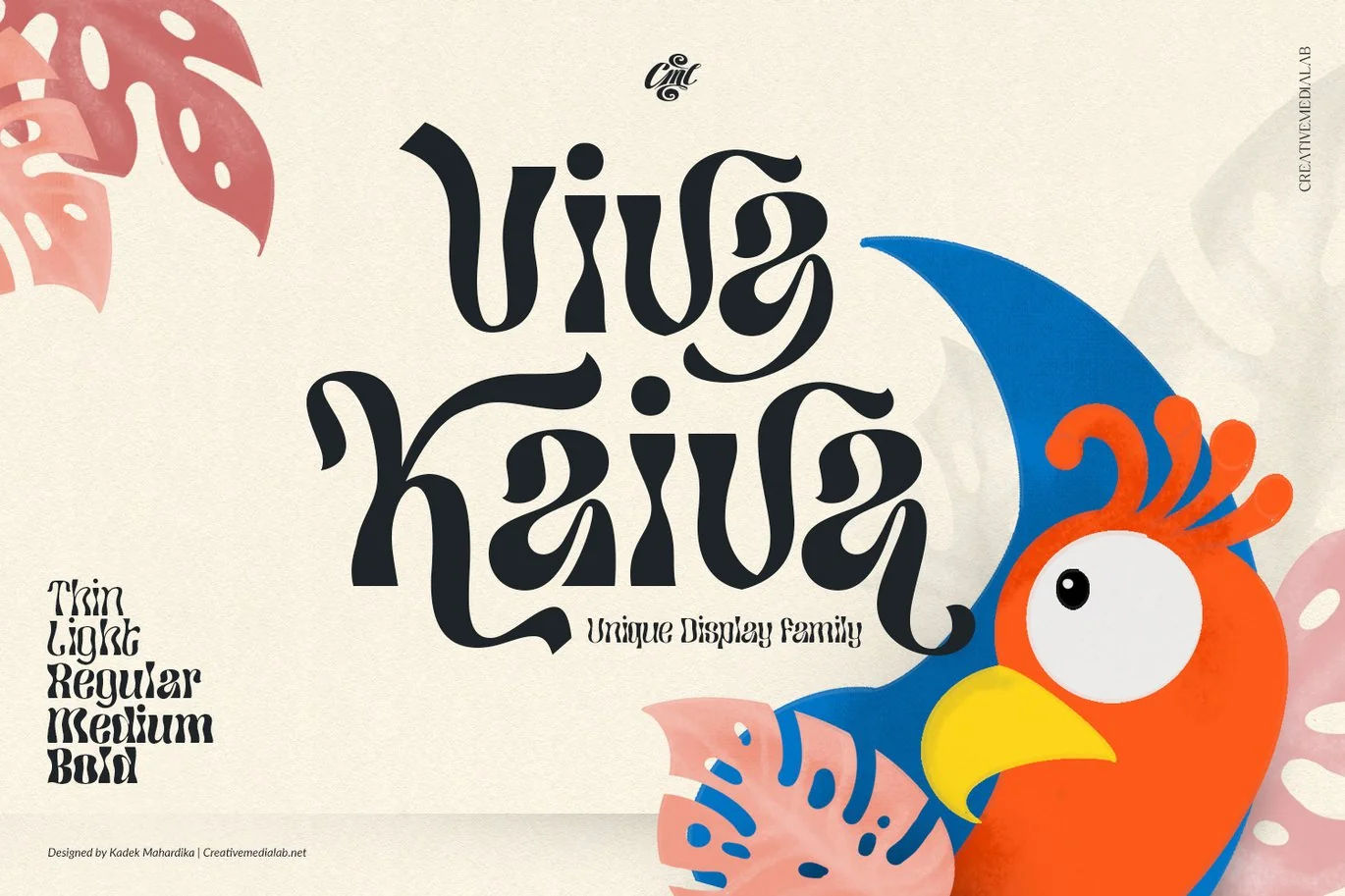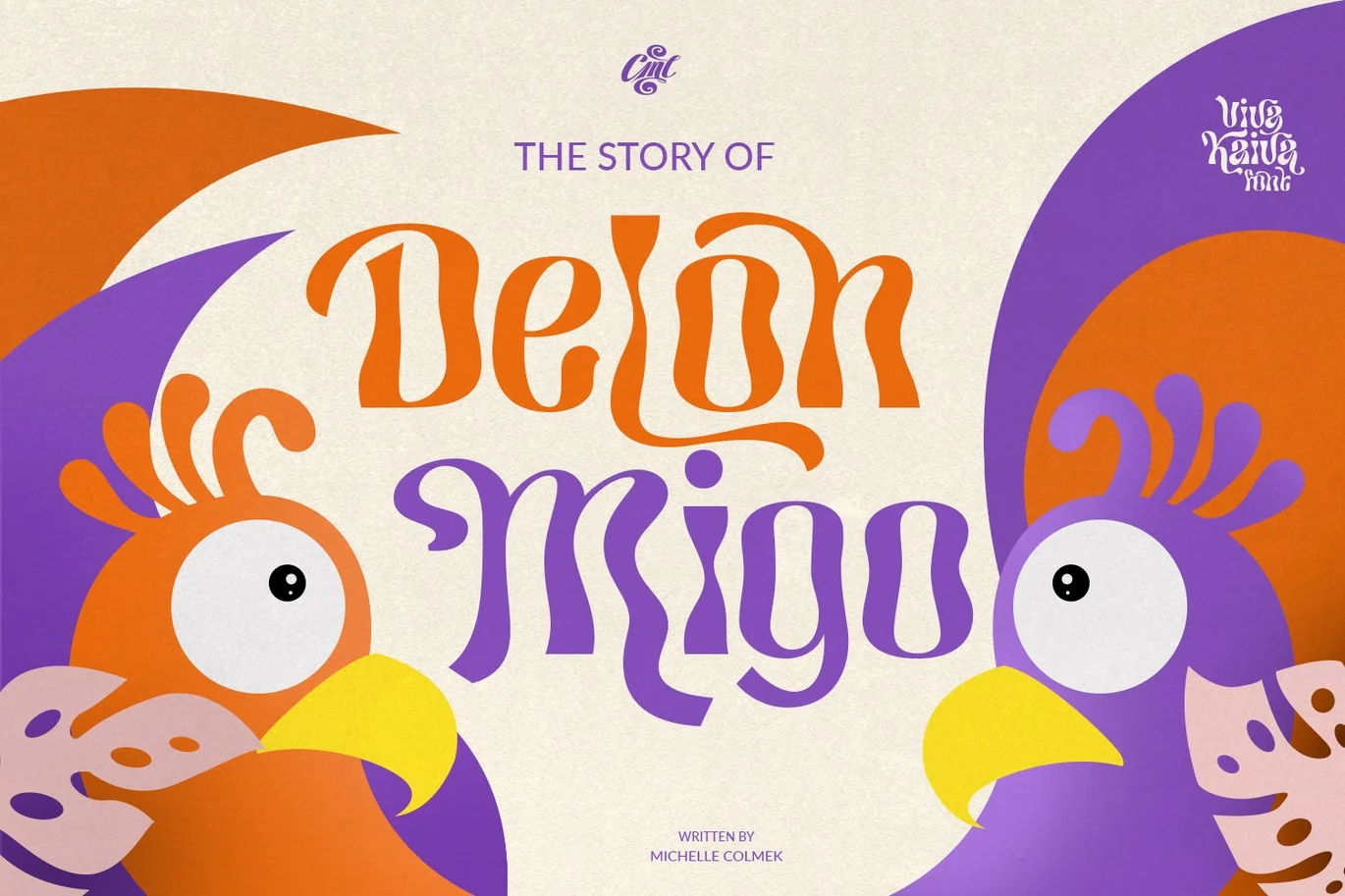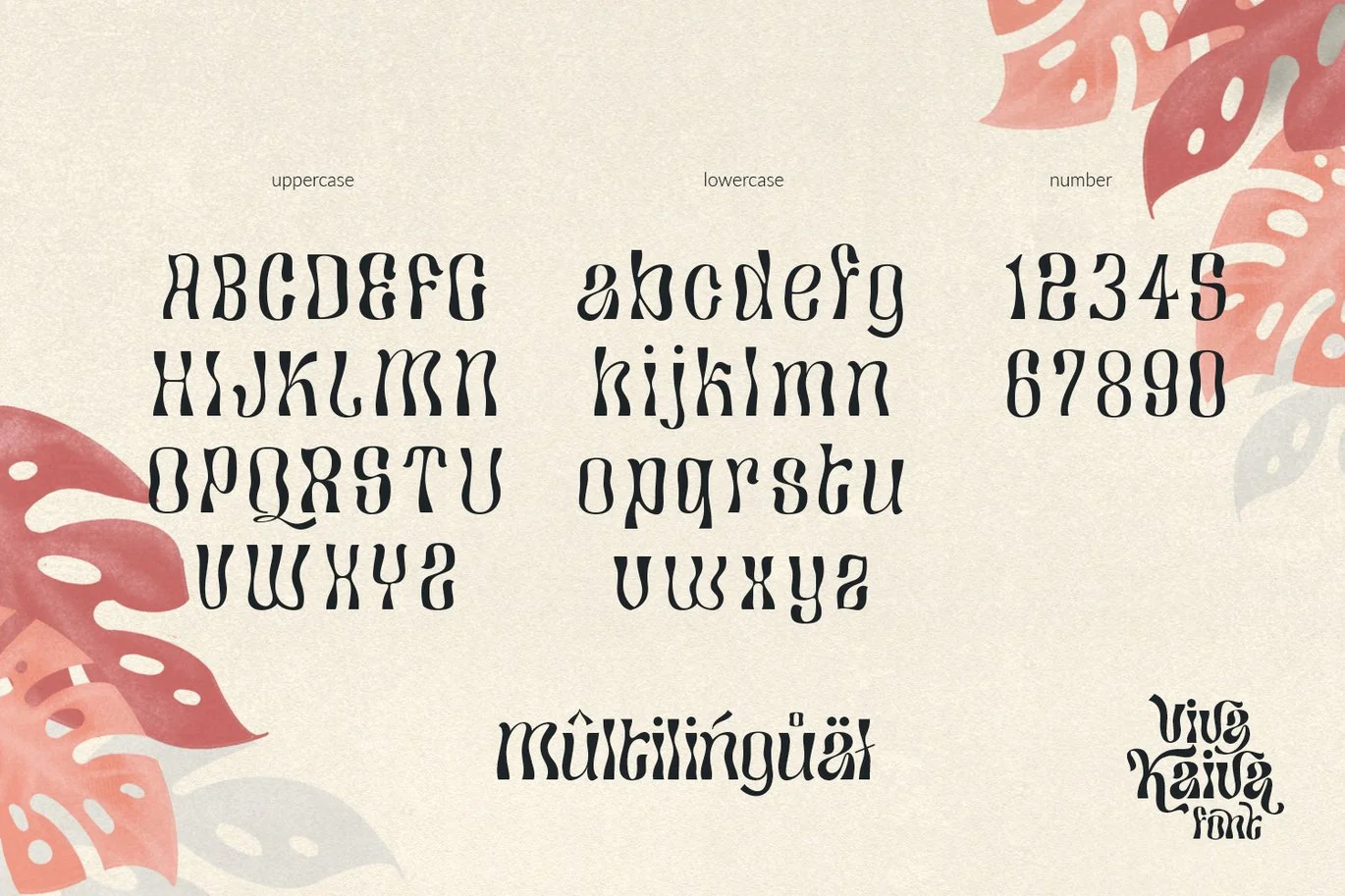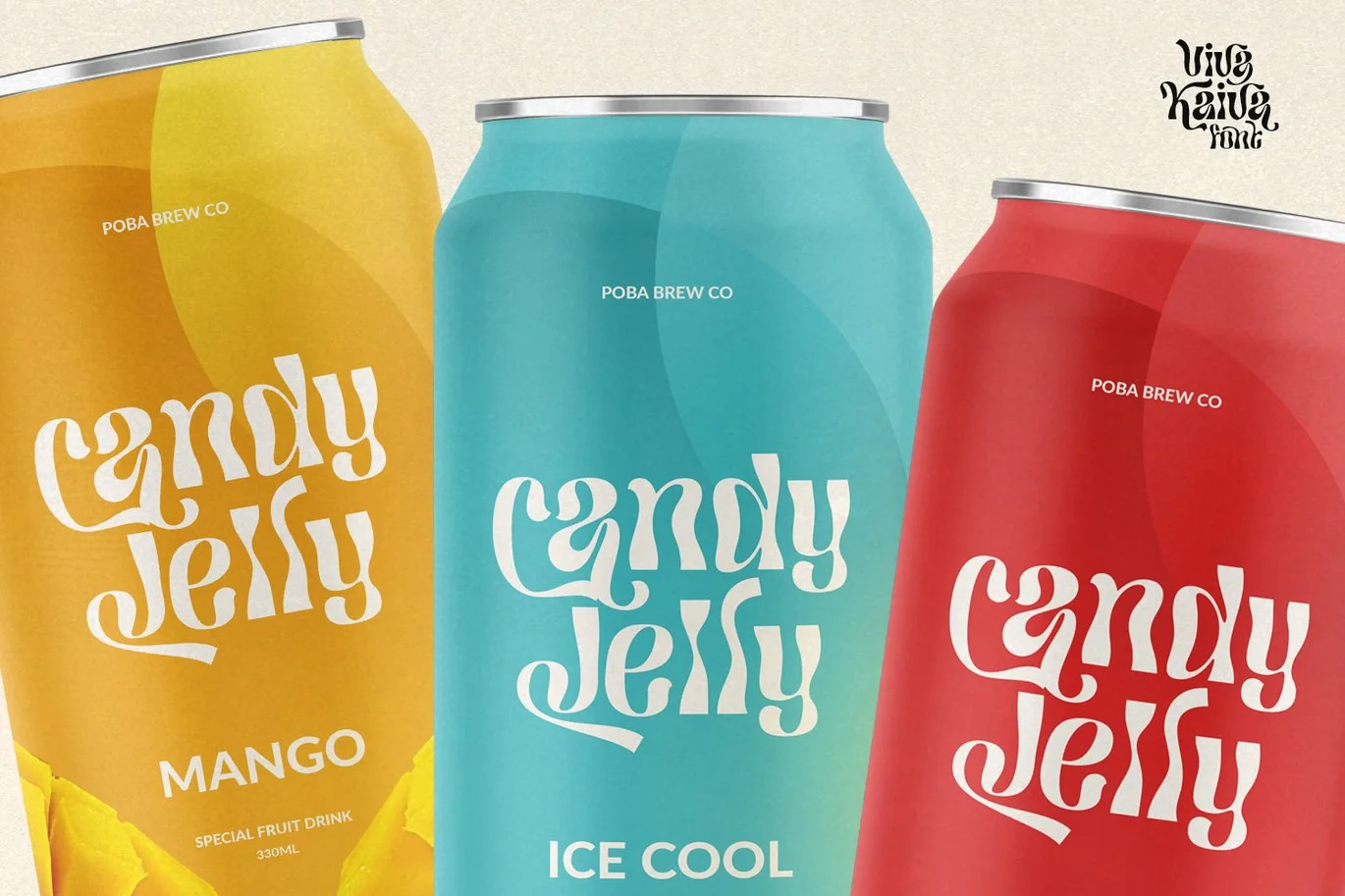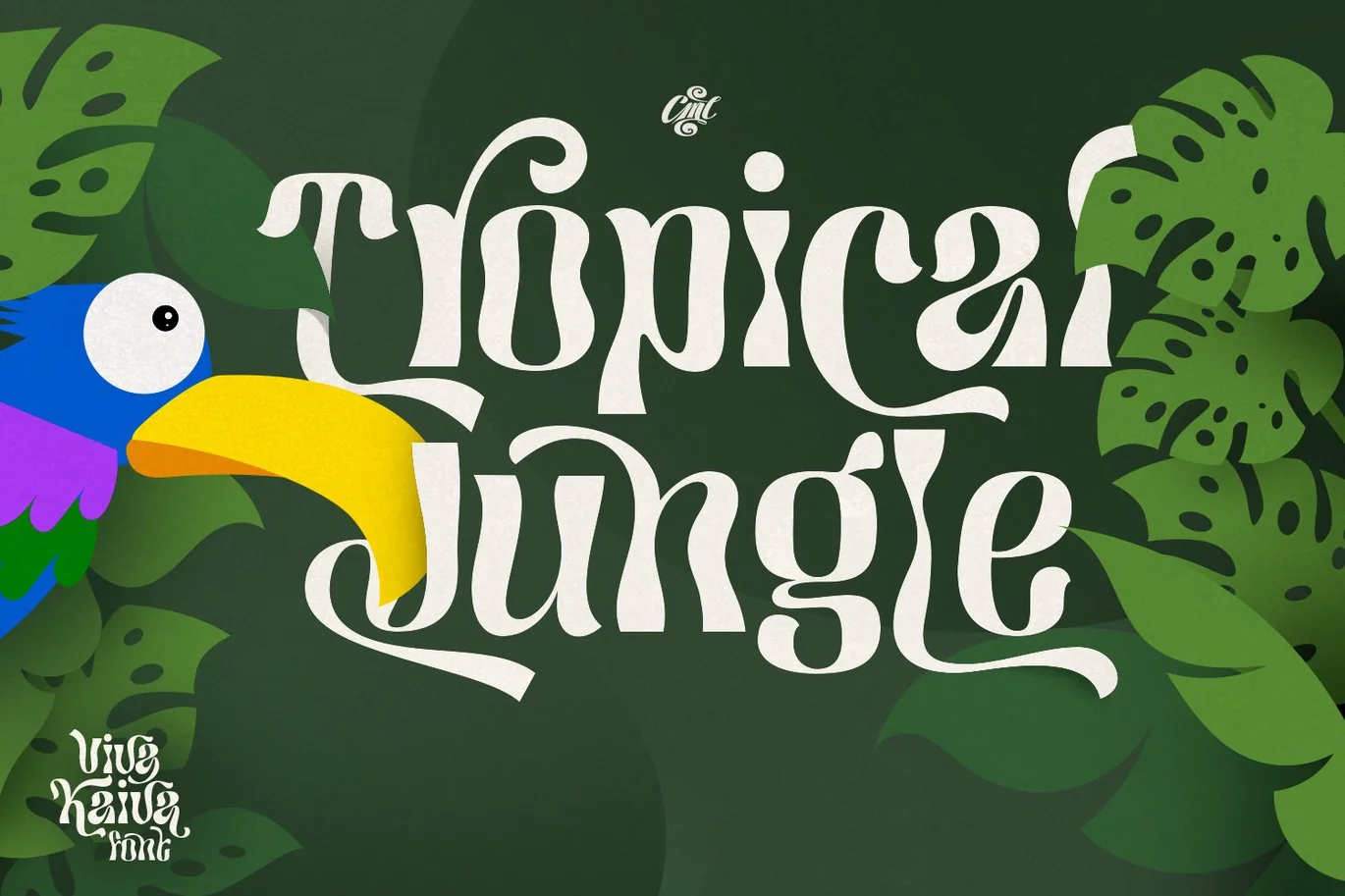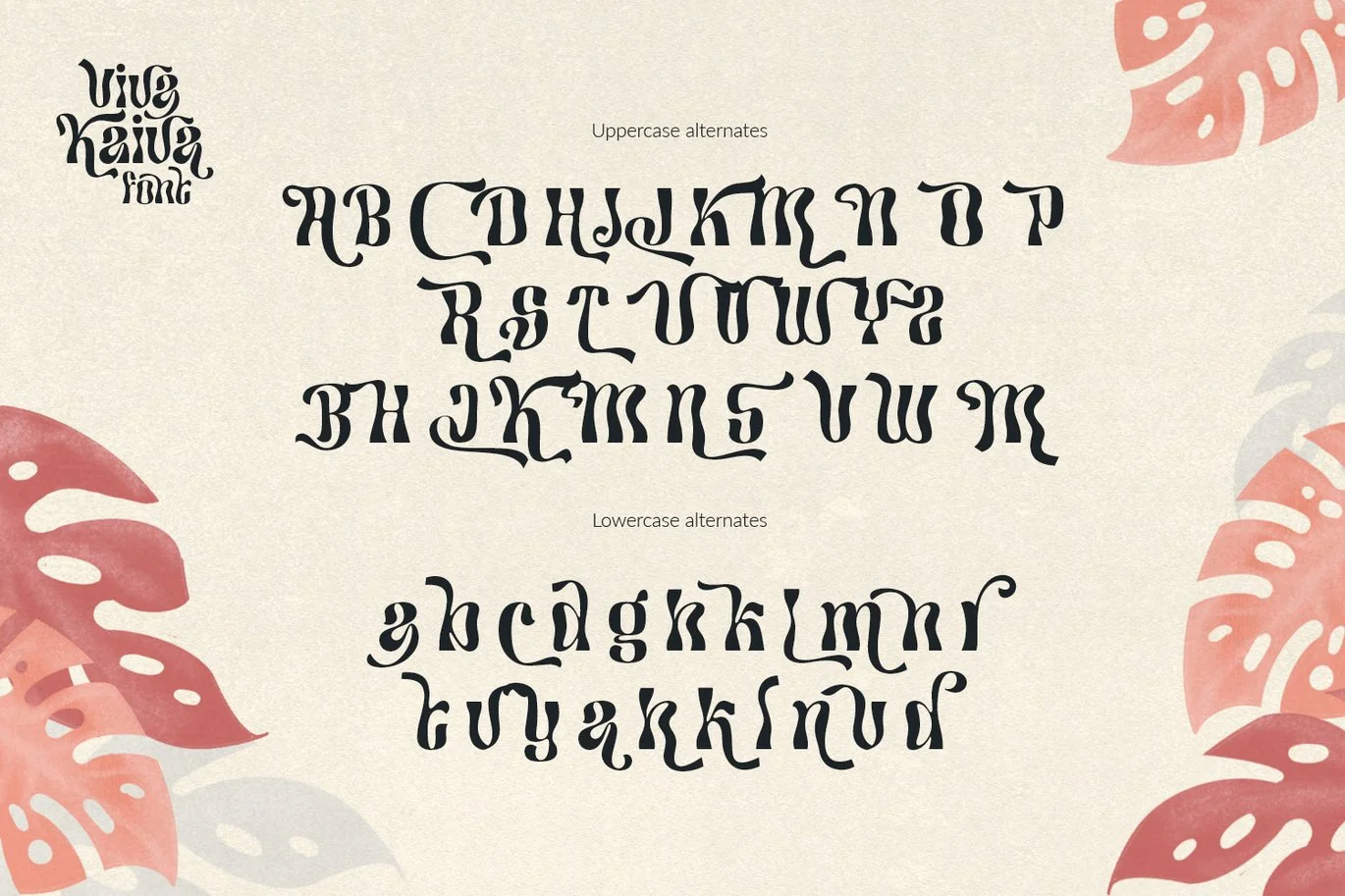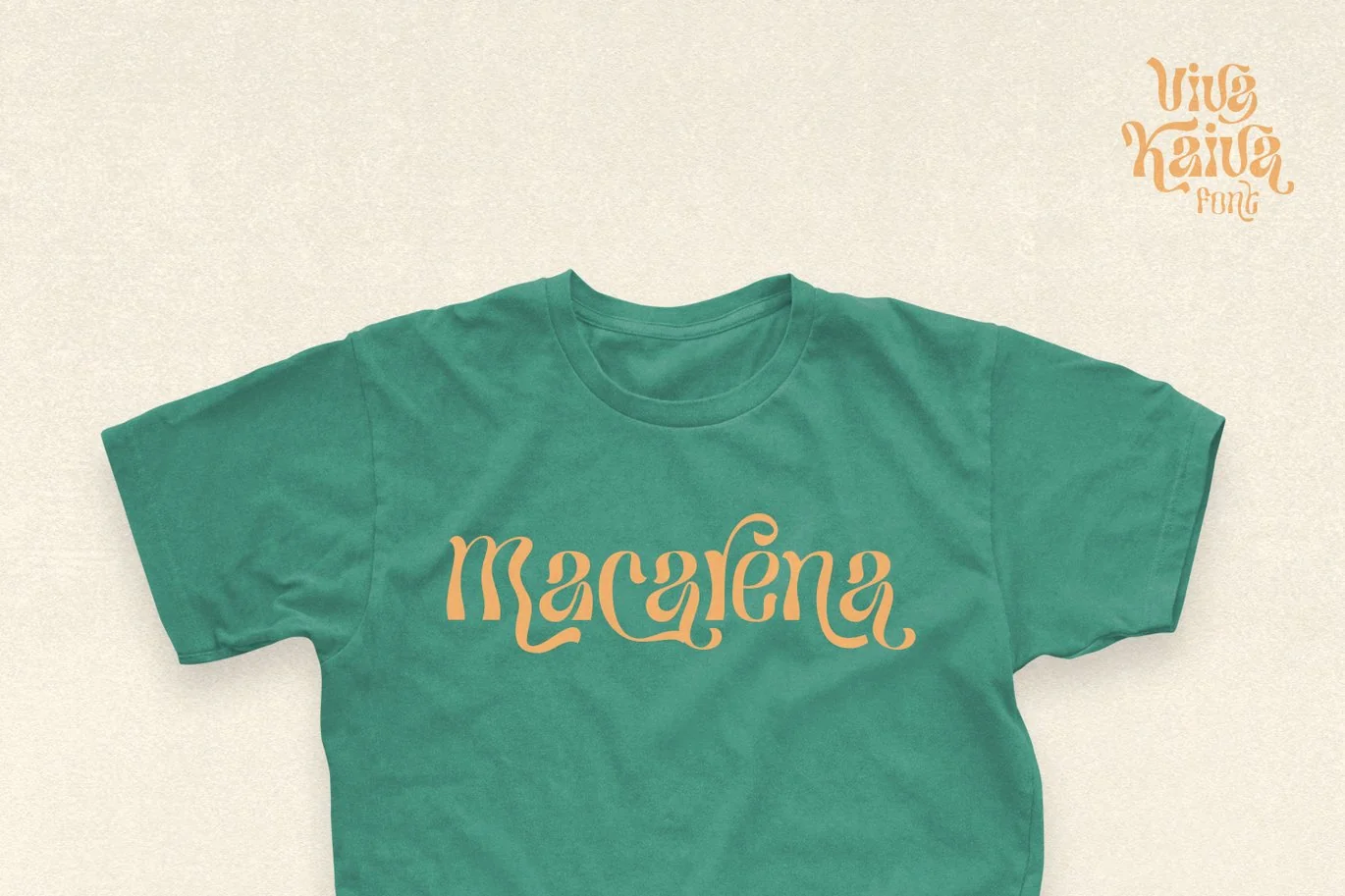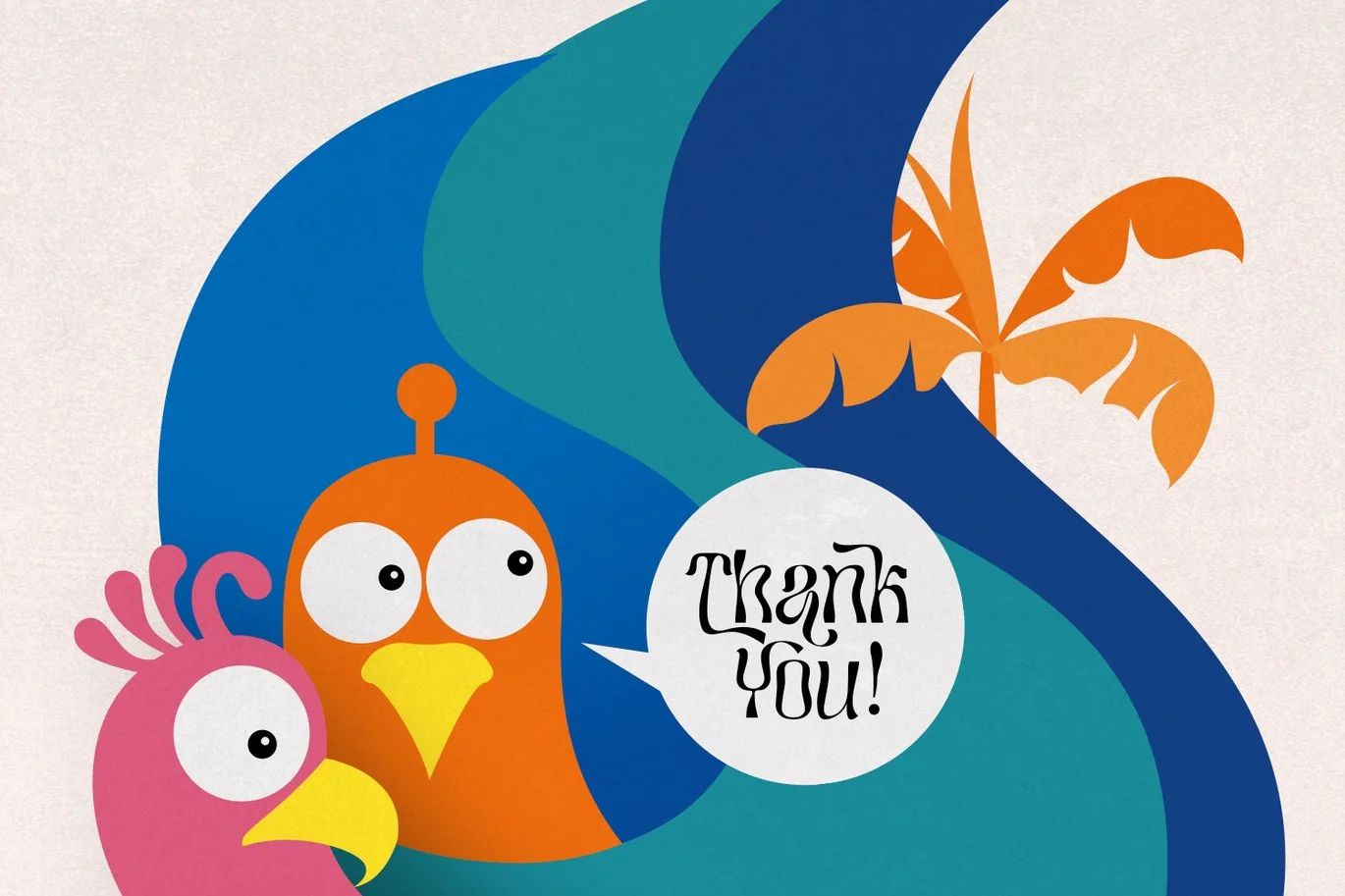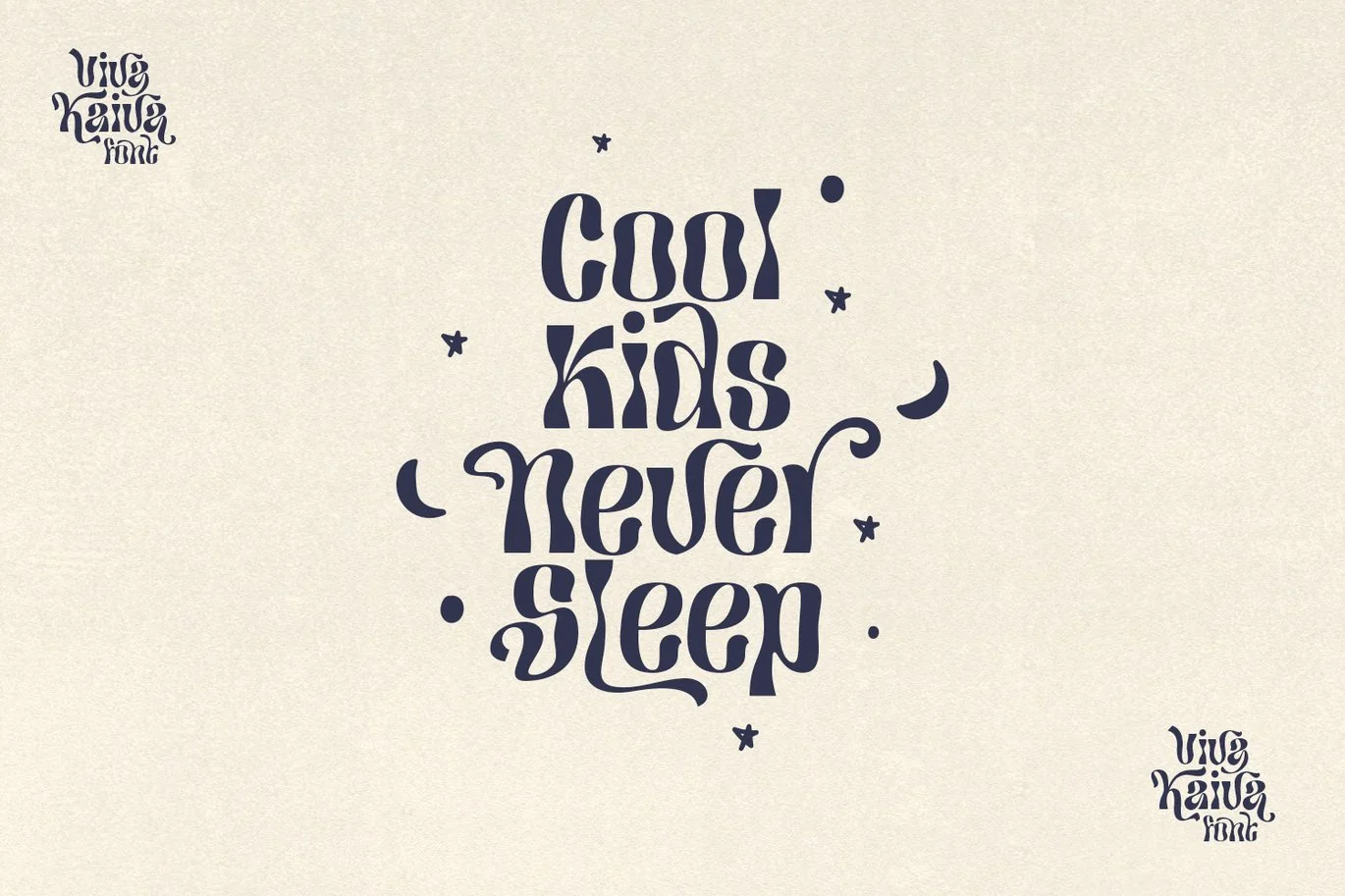
Viva Kaiva – Psychedelic Font
Viva Kaiva is one of our unique fonts with a psychedelic touch, this font has many stylistic alternates that make this font the best option for creating a unique title for your Illustrations, titles, posters, branding projects as well as designs with a fantasy theme. Explore your imagination with Viva Kaiva.
Supported Languages
Western Europe, Central/Eastern Europe, Baltic, Turkish, Romanian